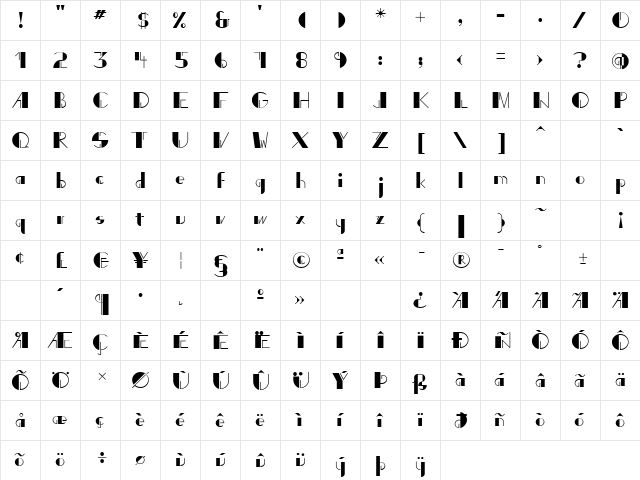
Art Deco Display P22 Regular
Design Context for Art Deco Display P22 Typeface
Art Deco Display P22 brings ornamental detail and strong personality to headlines and identities, where visual impact matters more than quiet functionality.
Font Pairing: Pair with a clean neutral sans-serif for body copy to let Art Deco Display P22's character lead without overwhelming the composition.
Pro Tip: Treat Art Deco Display P22 as the centrepiece of your typographic hierarchy. One strong heading set in a decorative face can carry an entire layout.